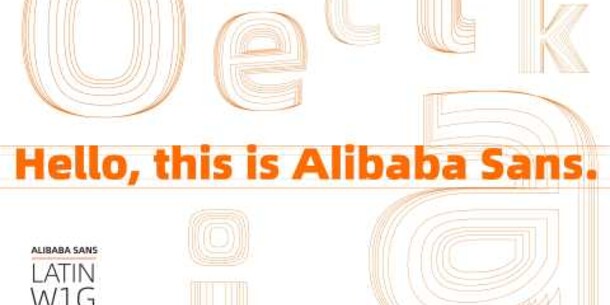
Monotype Unveils Alibaba Sans, a Custom Brand Typeface for the Alibaba Group
Custom-Designed Font Family, Alibaba Sans, Opened to Alibaba Partners and Customers at No Cost to Power On-Brand Designs
WOBURN, Mass.—(BUSINESS WIRE)— Monotype (Nasdaq: TYPE) and Alibaba today unveiled the Alibaba Sans typeface. Designed for Alibaba Group, a multinational leader in e-commerce, retail and technology, the typeface family helps unify the company’s branding across its vast international apps, platforms and websites. With this launch, Alibaba is authorizing all merchants and brands free access to the font system to enable them to express their brand identity and create businesses that are beautiful and simple. Highly legible, energetic and expressive, the Alibaba Sans typeface family was designed by Akira Kobayashi of the Monotype Studio .
The Alibaba Sans family consists of 11 weights, and was designed to be aesthetically pleasing from small to large sizes across any device or location—from display screens, across multiple office buildings on the company campus, to e-commerce marketplaces. The typeface family supports 172 languages, and was designed with a strong emphasis on numerals and currency symbols, given the importance to the millions of merchants on Alibaba’s vast worldwide digital ecosystem.
With a mission “to make it easy to do business anywhere,” Alibaba Group helps connect buyers to sellers through its platforms. With its operations now spanning e-commerce, cloud computing, payment, logistics, digital media, and entertainment and innovation initiatives, Alibaba strives to provide nearly 700 million users and tens of millions of merchants worldwide on its platforms with a consistent look and feel. The Alibaba Sans typeface fulfills that mission by giving businesses fonts that allow them to easily create on-brand campaigns.
“Monotype understood our unique challenges and delivered a typeface that will take us to the next level in our branding efforts. We really appreciate their partnership as a true expert and extension of our team,” said Chris Tung, Chief Marketing Officer of Alibaba Group. “We would like to make this new typeface an inclusive resource for all partners and customers globally, and for free. True to our group mission, we are taking a concrete step forward to help small and medium-sized enterprises participate in the digital economy through the power of design.”
“Alibaba Group faced a common but significant branding challenge, in that it needed to convey its brand values across a wide range of environments, both physically and digitally,” said Akira Kobayashi. “It was a pleasure to work with a team so dedicated to the importance of type, and help Alibaba Group realize the potential that a custom typeface has for unifying a brand.”